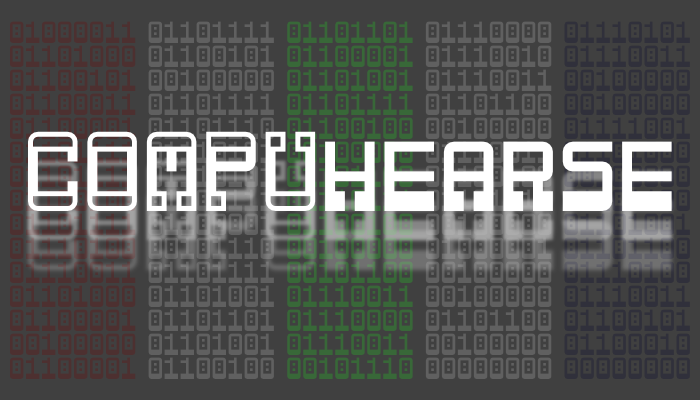
Compuhearse Font
by Pixel Kitchen
I took the line width variation of Art Deco fonts and turned it 90 degrees to create something bottom-heavy. The result looks really technological and reminds me of 1980s PC microsystems like the Sharp x86000, BBC Micro, Dragon32, and so on. Uppercase and lowercase are two seperate styles.